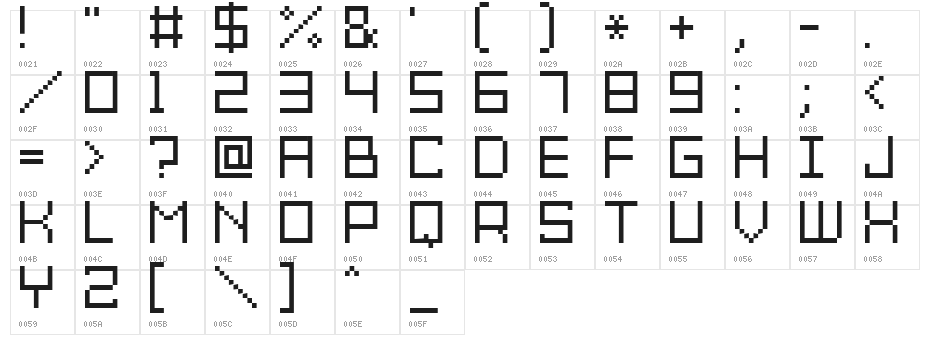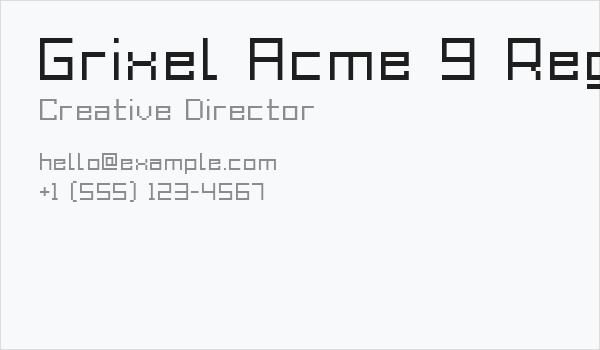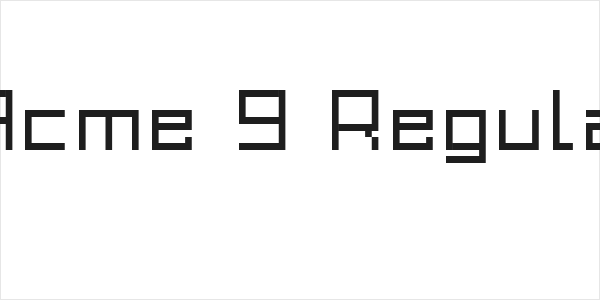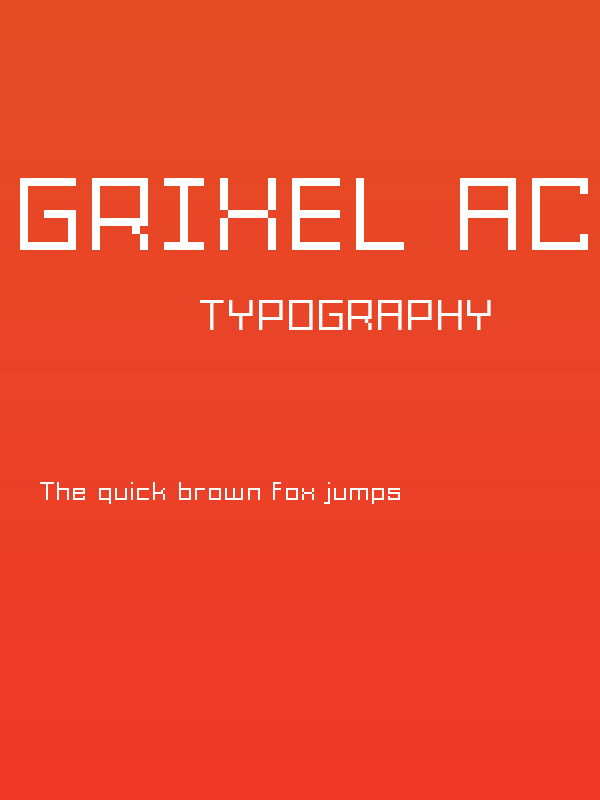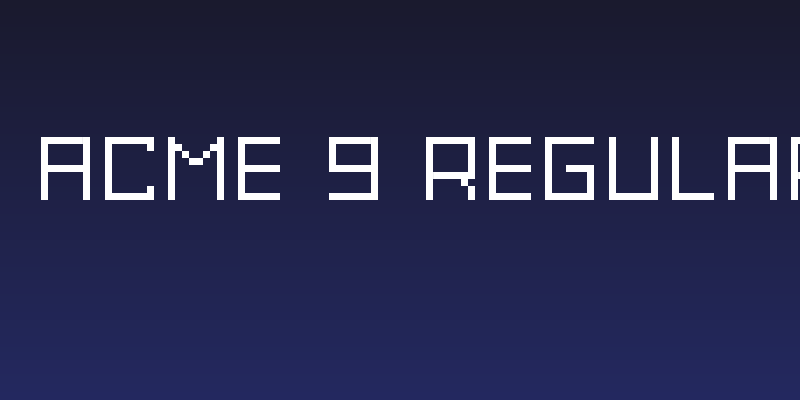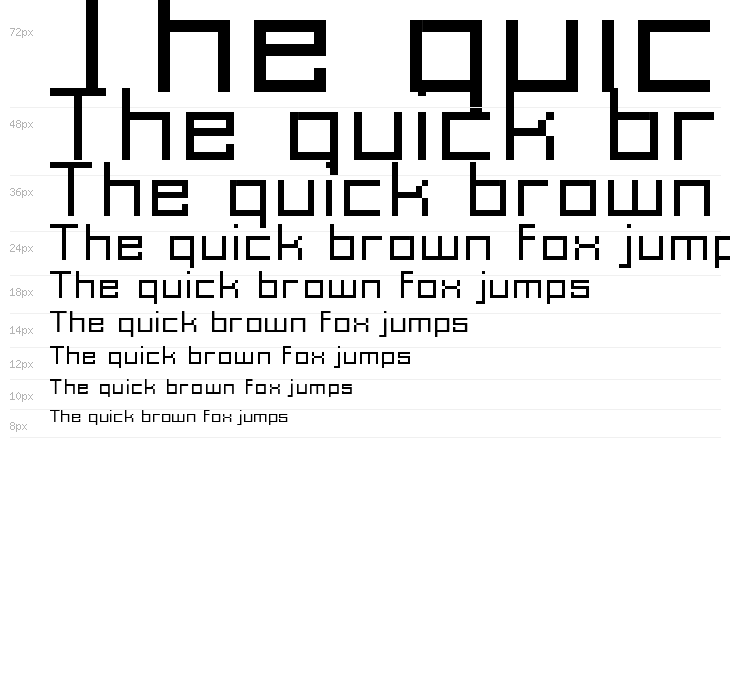
Grixel Acme 9 Regular Xtnd Font
Grixel Acme 9 Regular Xtnd Description
This font features a pixelated, grid-like structure that is reminiscent of early digital displays and retro video games. Each character is composed of uniform square blocks, giving it a distinctly digital and geometric appearance. The uppercase and lowercase letters maintain a consistent height and width, contributing to a monospaced feel. The numerals and special characters follow the same design principles, ensuring a cohesive look across all glyphs. The font's simplicity and clarity make it highly legible, even at smaller sizes, while its unique style adds a touch of nostalgia and modernity.
| Overall Style | Retro, Digital |
| Use Case | Logos, Headlines, Digital interfaces |
| Proposed Projects | Ideal for video game design, digital art projects, retro-themed posters, and any creative work that requires a nostalgic digital aesthetic. |